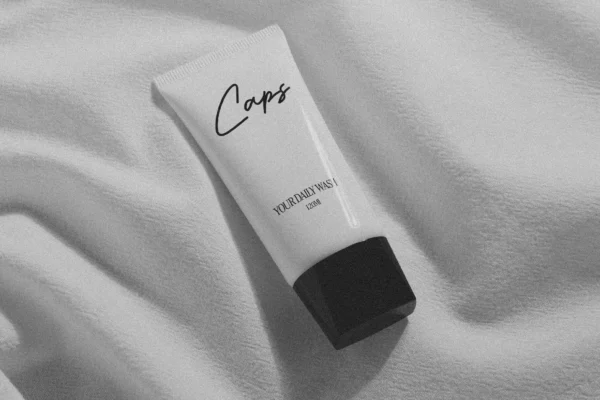
Jackarta – Handwritten Script Font
Jackarta is a beautifully handcrafted handwritten script font designed to bring elegance, warmth, and personality to your creative projects. With its smooth strokes and fluid letterforms, this font captures the natural feel of real handwriting, making it perfect for adding a touch of authenticity and sophistication to your designs.
Whether you’re working on branding, wedding invitations, packaging, logos, social media posts, or any artistic endeavor, Jackarta enhances your visuals with its refined yet organic style. The natural flow and stylish curves make it an excellent choice for projects that require a balance of elegance and modernity.
✔ Authentic Handwritten Style – Designed to mimic real handwriting, Jackarta delivers a personal and artistic feel.
✔ Uppercase & Lowercase Letters – Ensuring flexibility and creativity in typography.
✔ Beautiful Ligatures & Alternates – Add uniqueness and character to your designs with stylish glyph variations.
✔ Multilingual Support – Covers multiple languages to meet global design needs.
Jackarta is the perfect font for those who want to infuse their projects with a sense of warmth, elegance, and artistic flair. Elevate your typography with this exquisite handwritten script and create designs that stand out effortlessly!